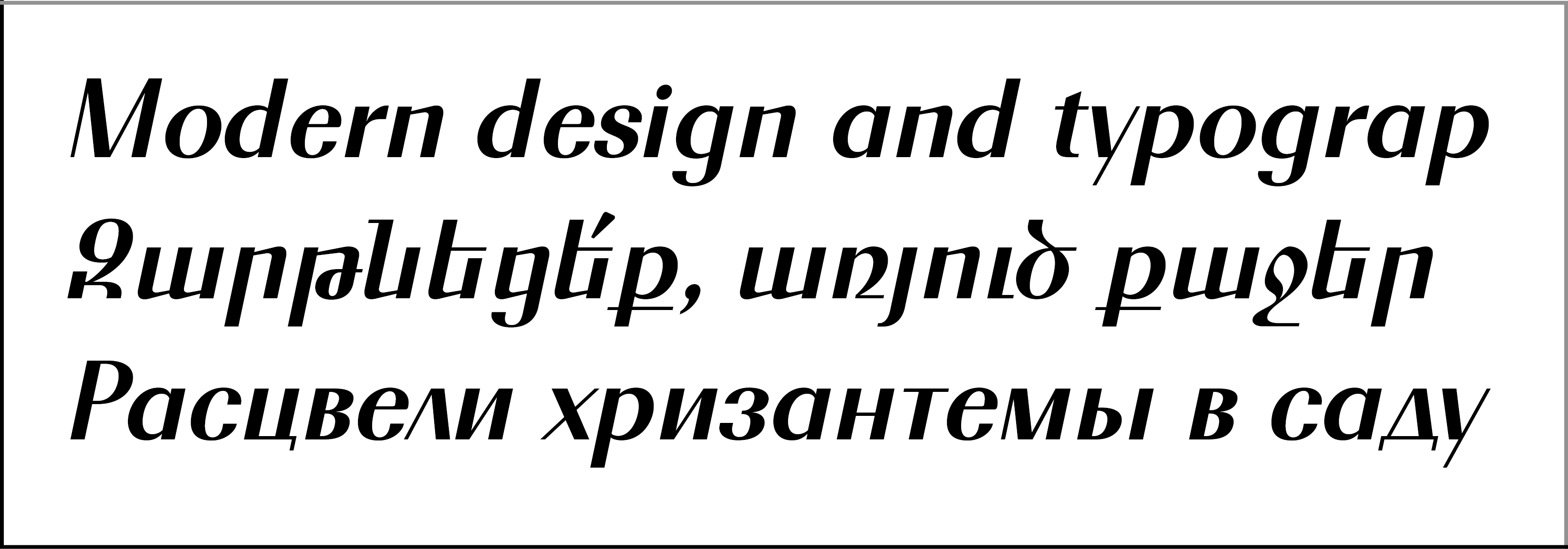
Display typefaces, Edik Ghabuzyan
GHEA WarmFont
Design date: 2021
The font family includes Armenian,  Latin Centra European and  Cyrillic alphabet systems.
The font can be used as a Display and title font.